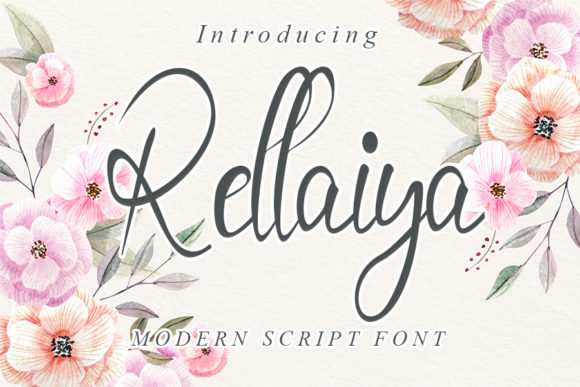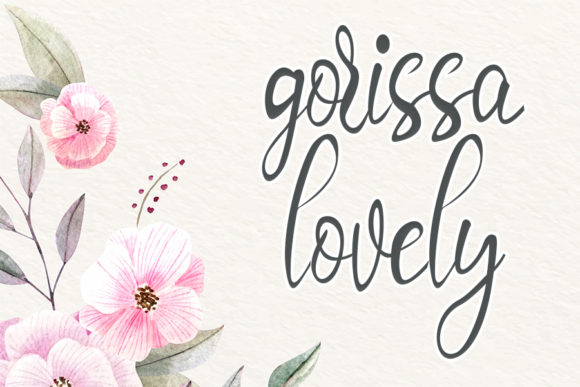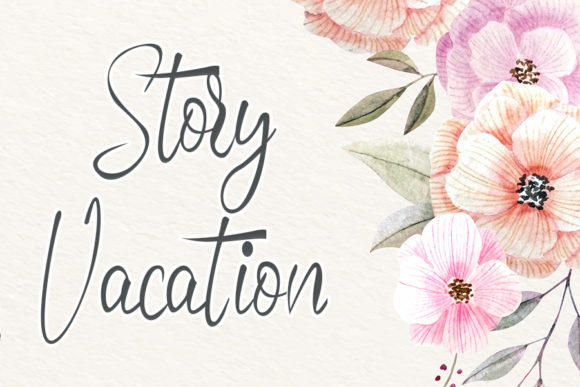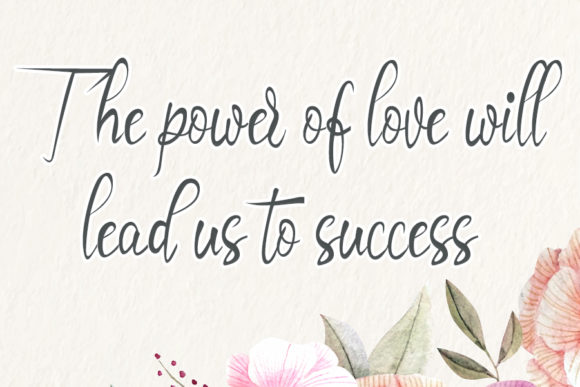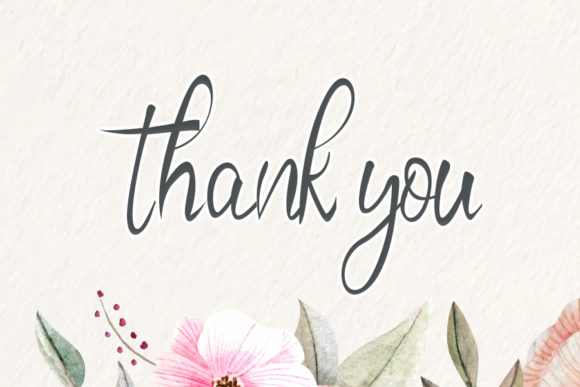
About Rellaiya Font
Rellaiya is a sweet and elegant calligraphy font. Its distinct and well rounded letters make this font a real work of art. Fall in love with its incredibly versatile style and use it to create lovely designs!